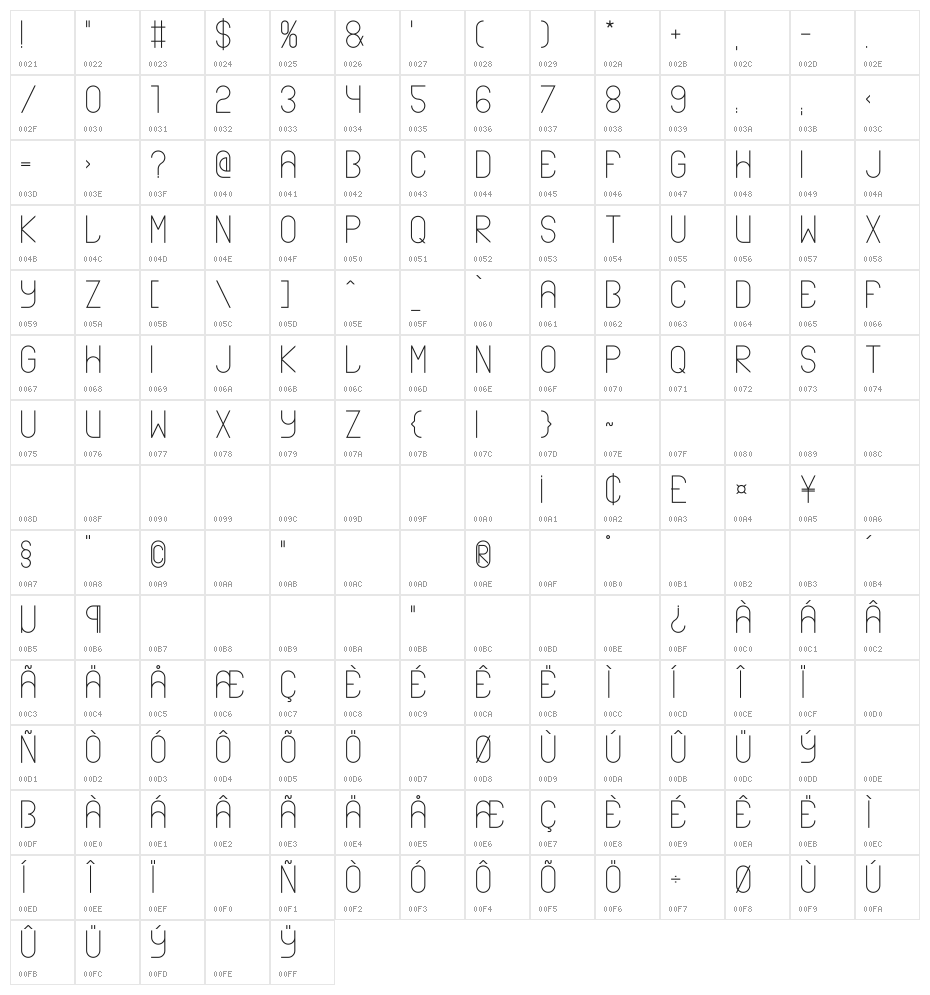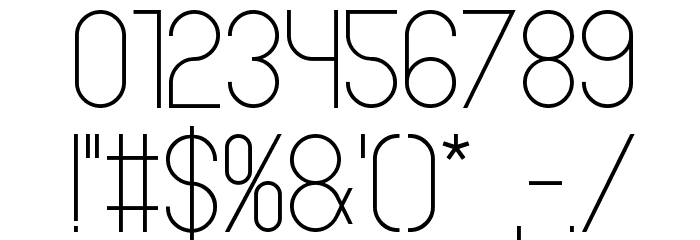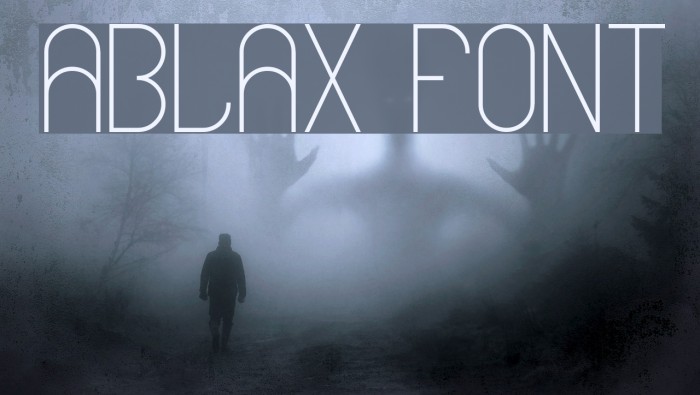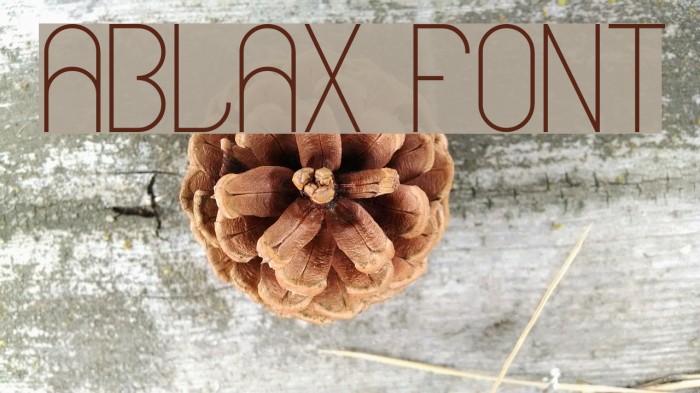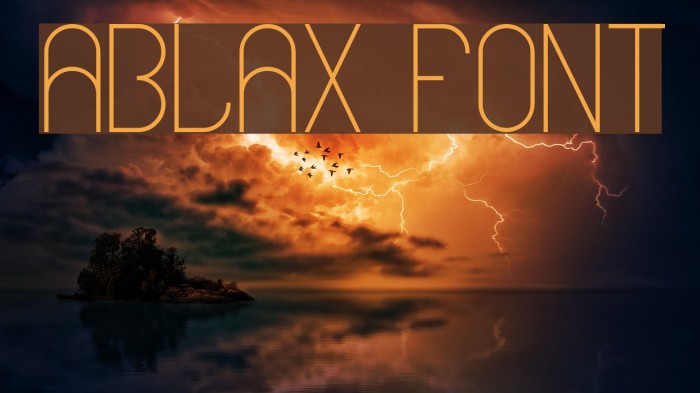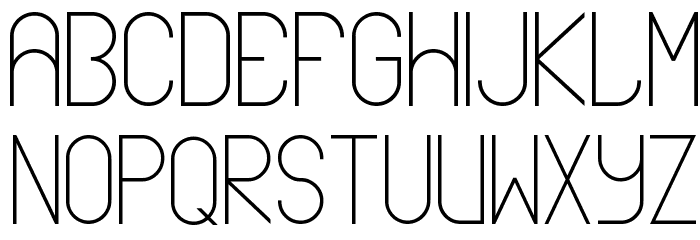
ABLAX Font
ABLAX Description
This font features a geometric and minimalist design, characterized by its thin, uniform lines and open, airy structure. The characters are constructed with a focus on simplicity and clarity, making it highly legible. The uppercase and lowercase letters maintain a consistent height and width, contributing to a balanced and harmonious appearance. The numerals and special characters follow the same design principles, ensuring a cohesive look across all elements. The overall aesthetic is modern and sleek, suitable for contemporary design projects.
| Use Case | Headlines, Body text, Logos |
| Proposed Projects | Ideal for branding, editorial design, digital interfaces, and modern advertising campaigns. |